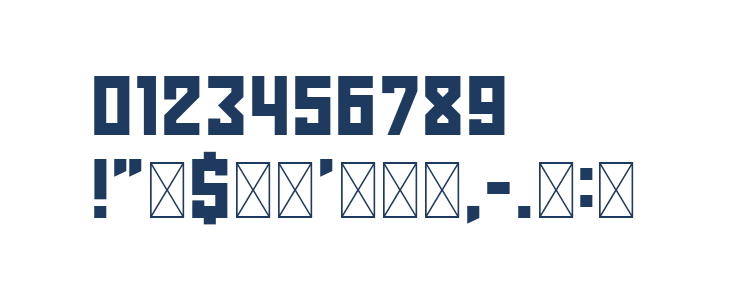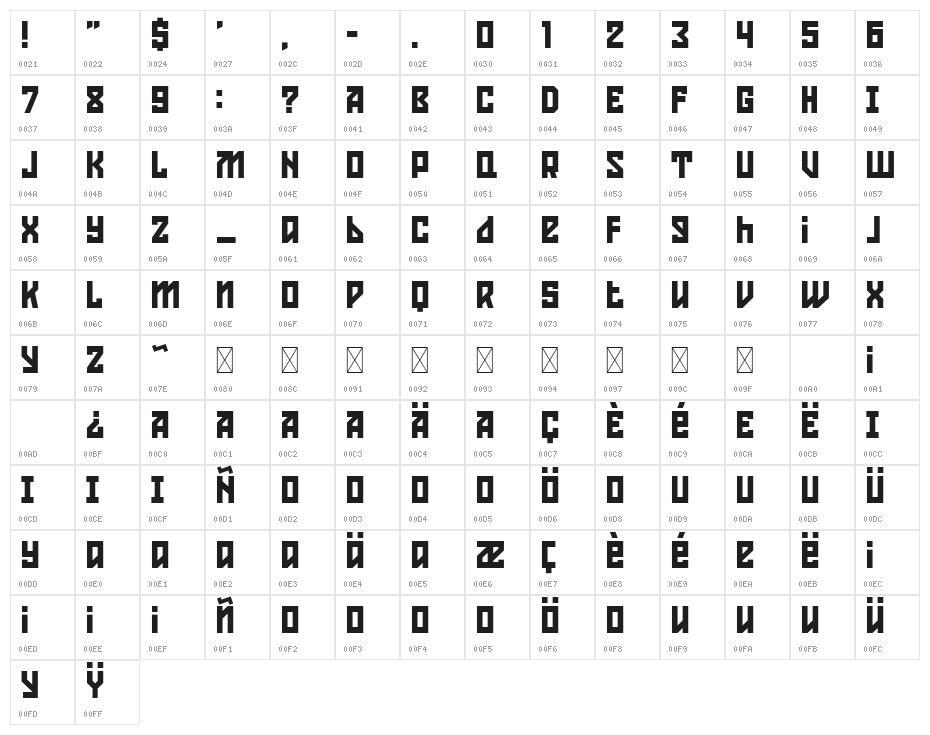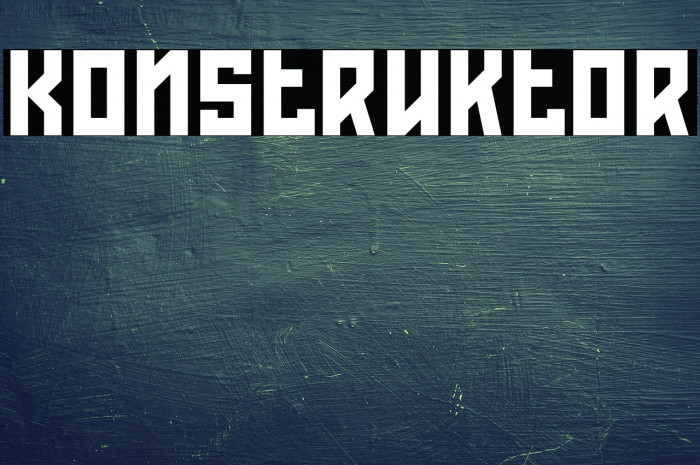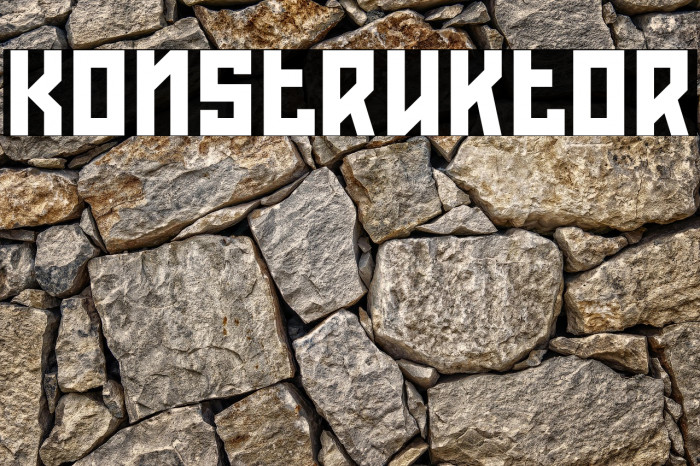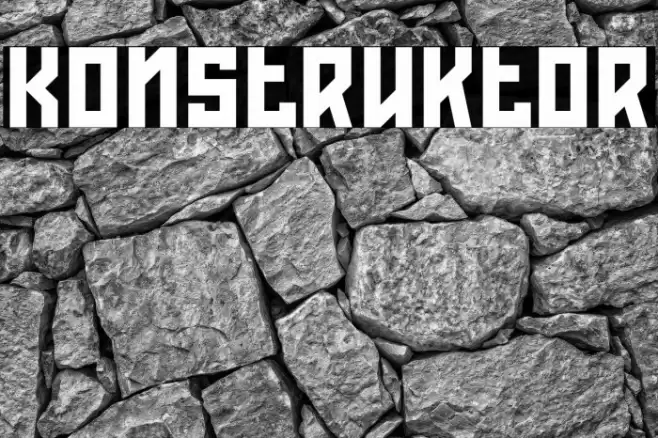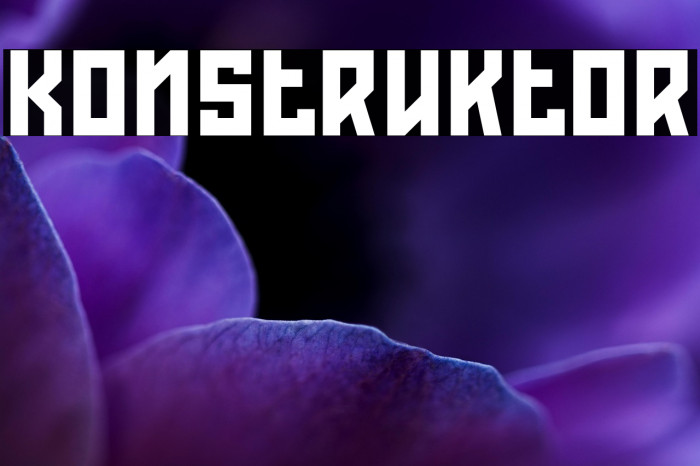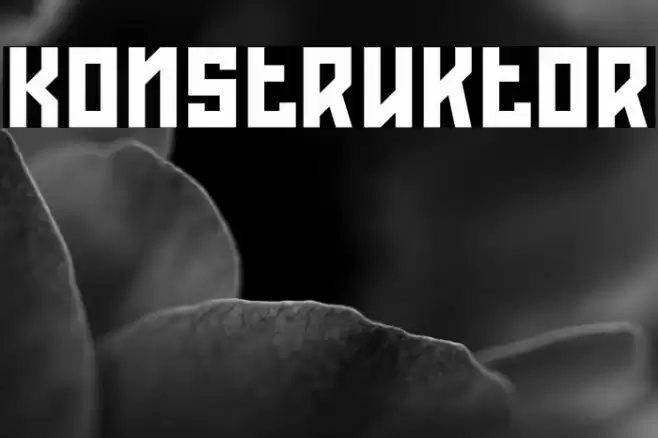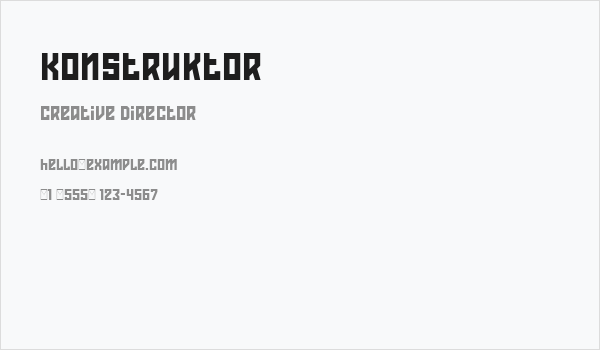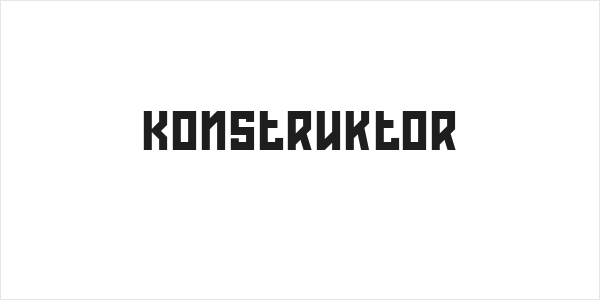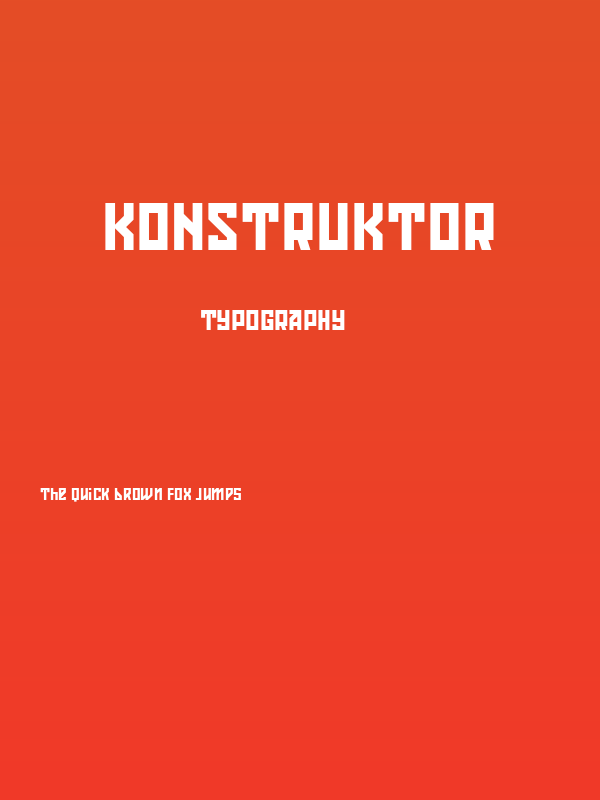
Konstruktor Font
Konstruktor Description
This font features a bold, geometric design with strong, angular lines and a modern aesthetic. The characters are constructed with a uniform thickness, giving them a solid and robust appearance. The uppercase and lowercase letters maintain a consistent style, with sharp edges and a blocky form that conveys a sense of strength and stability. The numerals and special characters follow the same design principles, ensuring a cohesive look across all elements. This font is ideal for projects that require a bold and impactful visual presence.
| Proposed Projects | Ideal for branding, posters, headlines, and any project requiring a strong visual impact. |